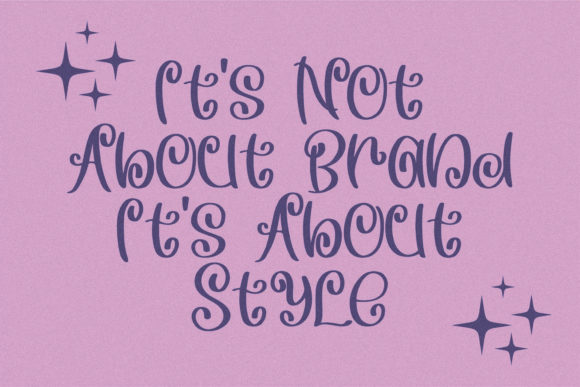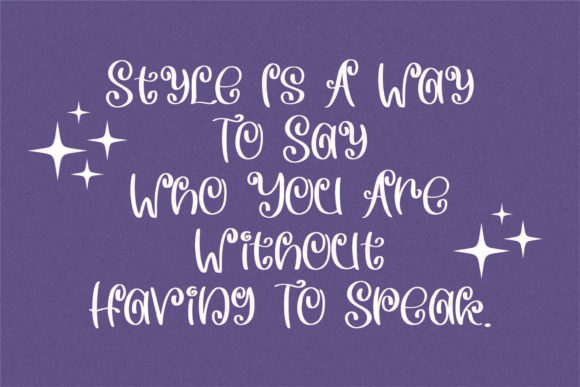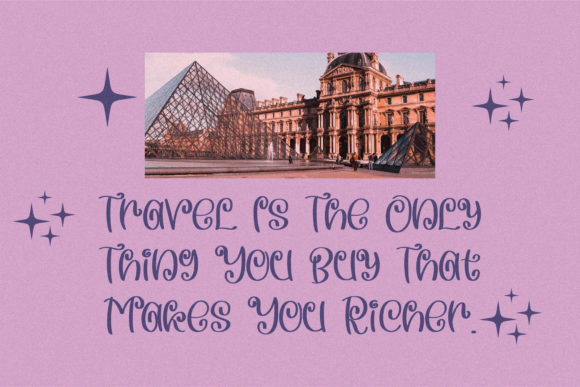
Introduction to Sepia Love Font
Have you ever been in the midst of a creative project, staring blankly at a blank page or screen, waiting for inspiration to strike? That’s exactly where I was when I discovered the Sepia Love Font – and it was love at first sight! This quirky, whimsical, and chic script font has a way of bringing your designs to life, adding a touch of elegance and sophistication that’s hard to resist.
As a designer, you know how valuable it is to have high-quality design resources at your fingertips. The Sepia Love Font is more than just a pretty face – it’s a versatile tool that can elevate your creative projects from ordinary to extraordinary. Whether you’re working on a free download or a paid design project, this font is sure to impress with its transparent background and endless possibilities.
- Unique Vintage Aesthetic: The Sepia Love Font features a distinctive, distressed design that adds a touch of nostalgia to any creative project.
- High-Quality Design: This font is designed with precision and care, ensuring that it looks great on a variety of backgrounds, from transparent to textured.
As a designer, I’m always on the lookout for unique and high-quality fonts to add a touch of elegance to my creative projects. Recently, I stumbled upon the Sepia Love Font, and I must say, it’s been a game-changer.
- ✨ High-quality design: The Sepia Love Font is beautifully crafted, with intricate details and a vintage feel that’s perfect for romantic-themed designs.
- ✨ Versatile: This font can be used for a variety of projects, from wedding invitations to book covers, and even social media graphics.
- ⚠️ Limited character set: The font only includes a limited character set, which may not be suitable for longer texts or complex designs.
Overall, I’m impressed with the Sepia Love Font’s design quality and versatility. While it may have some limitations, it’s an excellent addition to any designer’s toolkit. With a little creativity, this font can help you create stunning designs that will leave a lasting impression.
The Sepia Love Font is a high-quality, free download design resource perfect for creative projects. With its unique aesthetic, it adds a touch of elegance and sophistication to any design. This font features a transparent background, making it easy to overlay on images or use as a standalone element.
The Sepia Love Font is perfect for wedding invitations, romantic greeting cards, or any other design project that requires a touch of elegance and sophistication. Its unique aesthetic makes it a great choice for creative projects that need to stand out.
Yes, the Sepia Love Font is designed to be used on a transparent background, making it perfect for creating stunning designs with a subtle, vintage feel. Simply use the font with a transparent layer or background, and you’ll be able to achieve a beautiful, high-quality design.